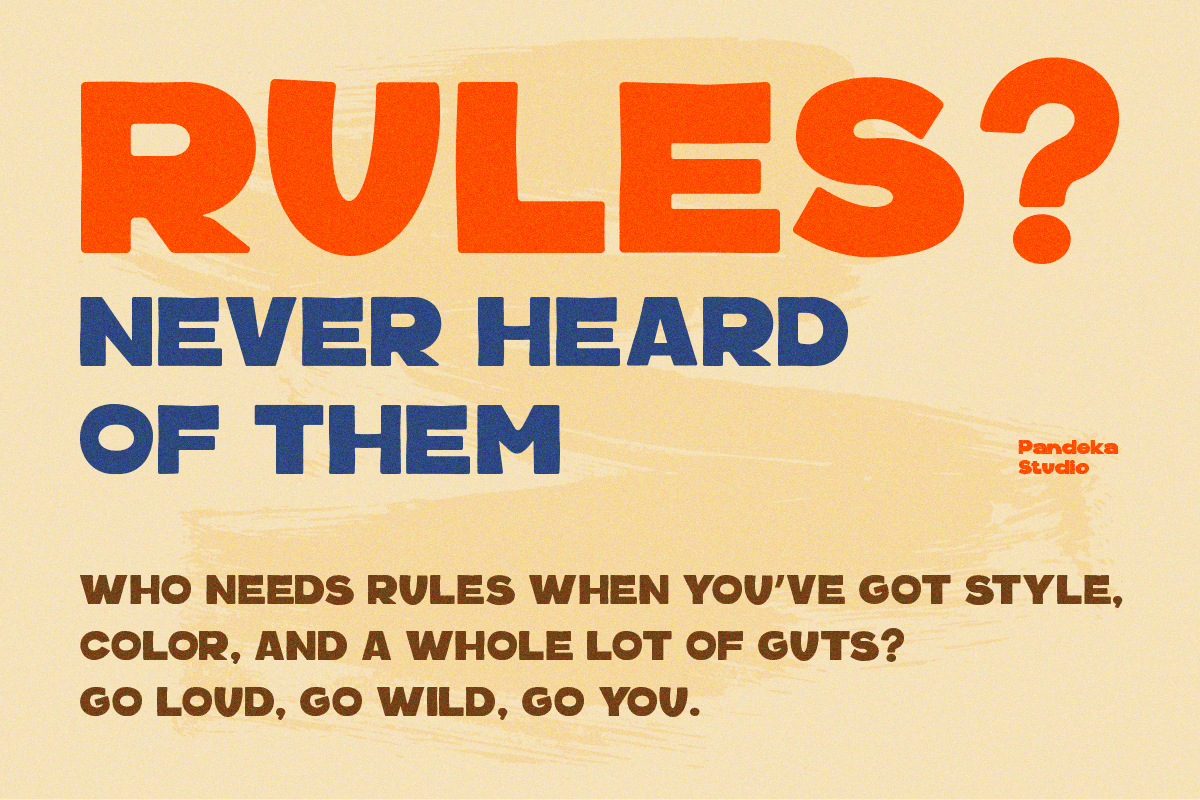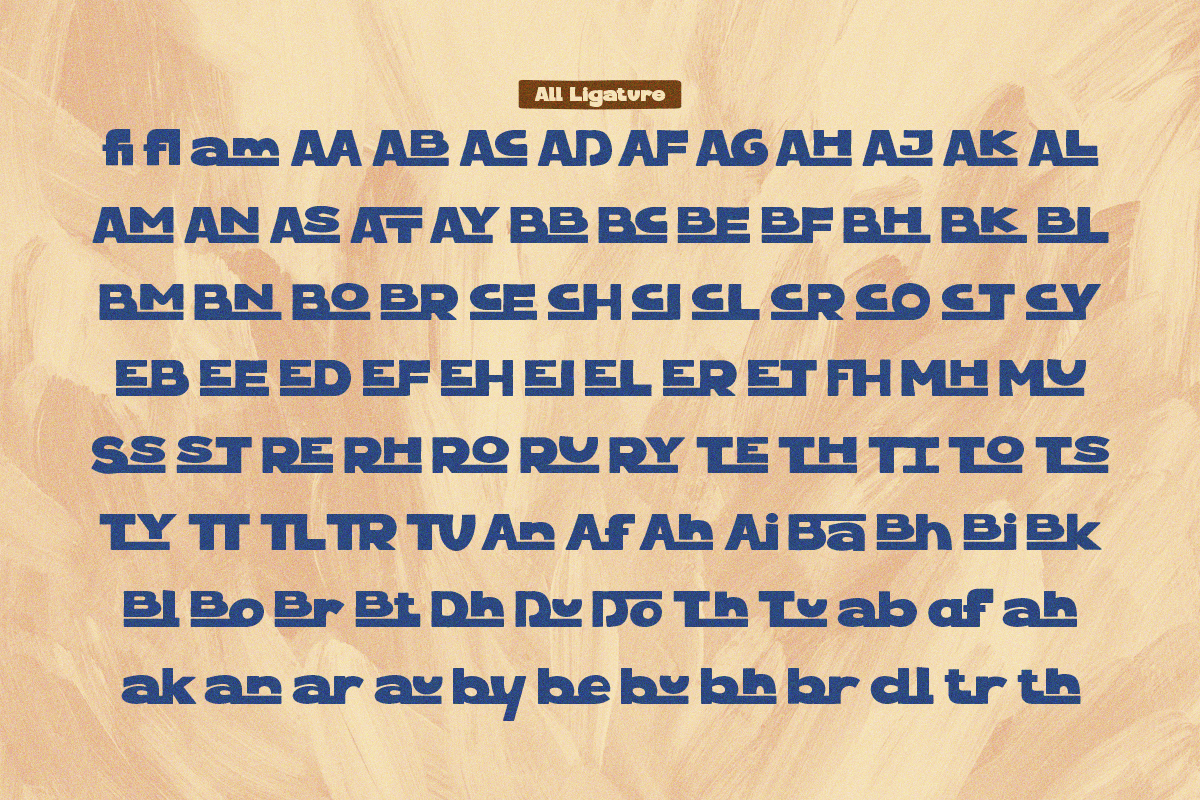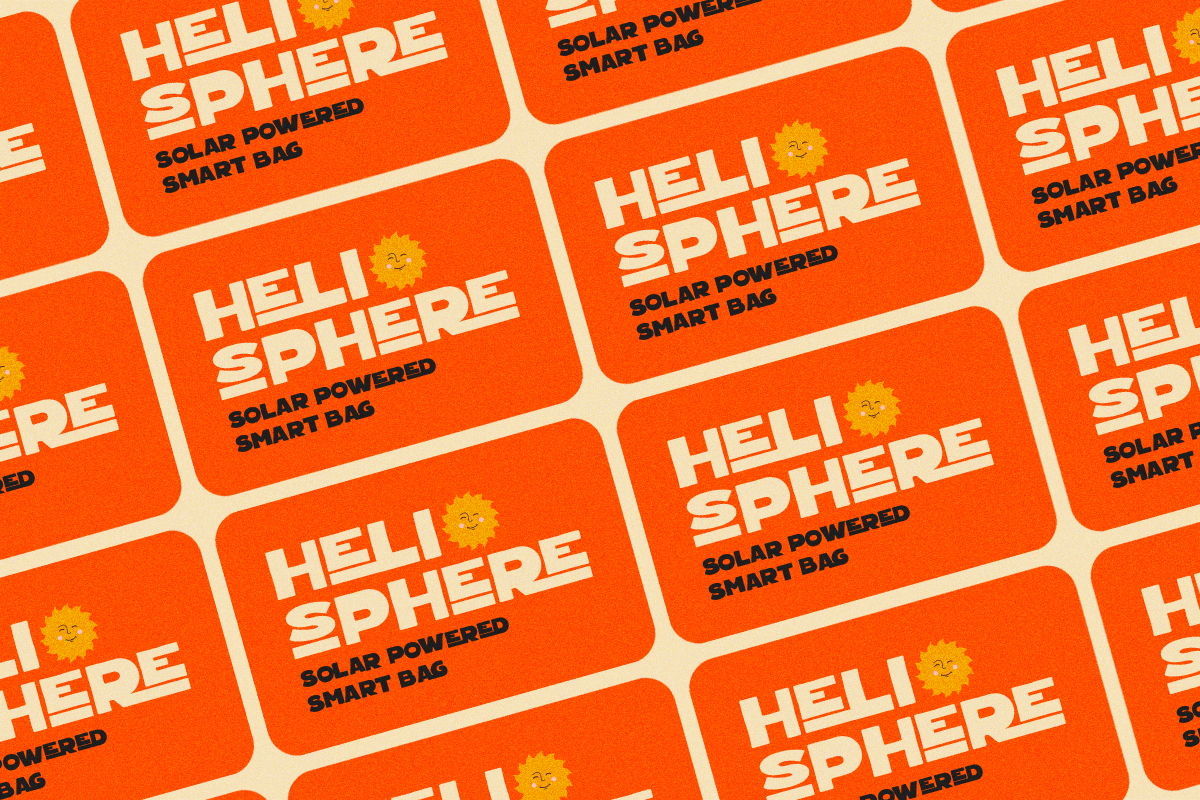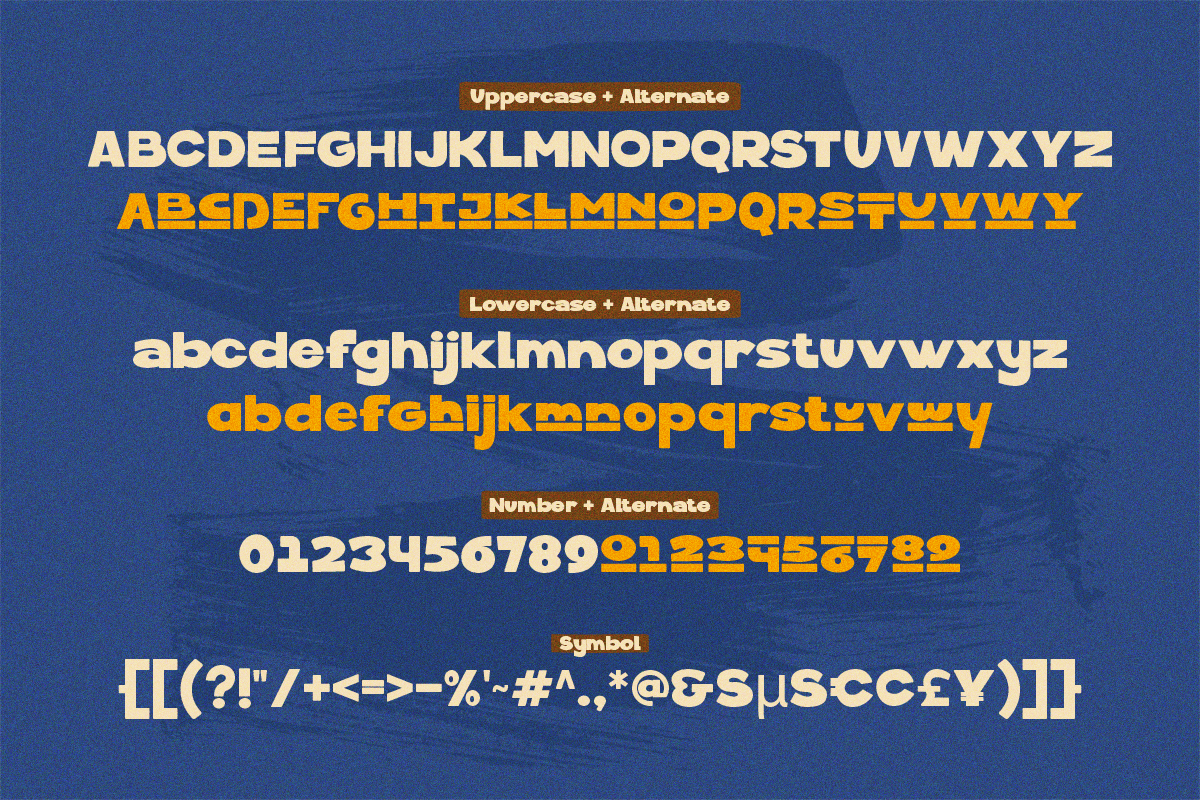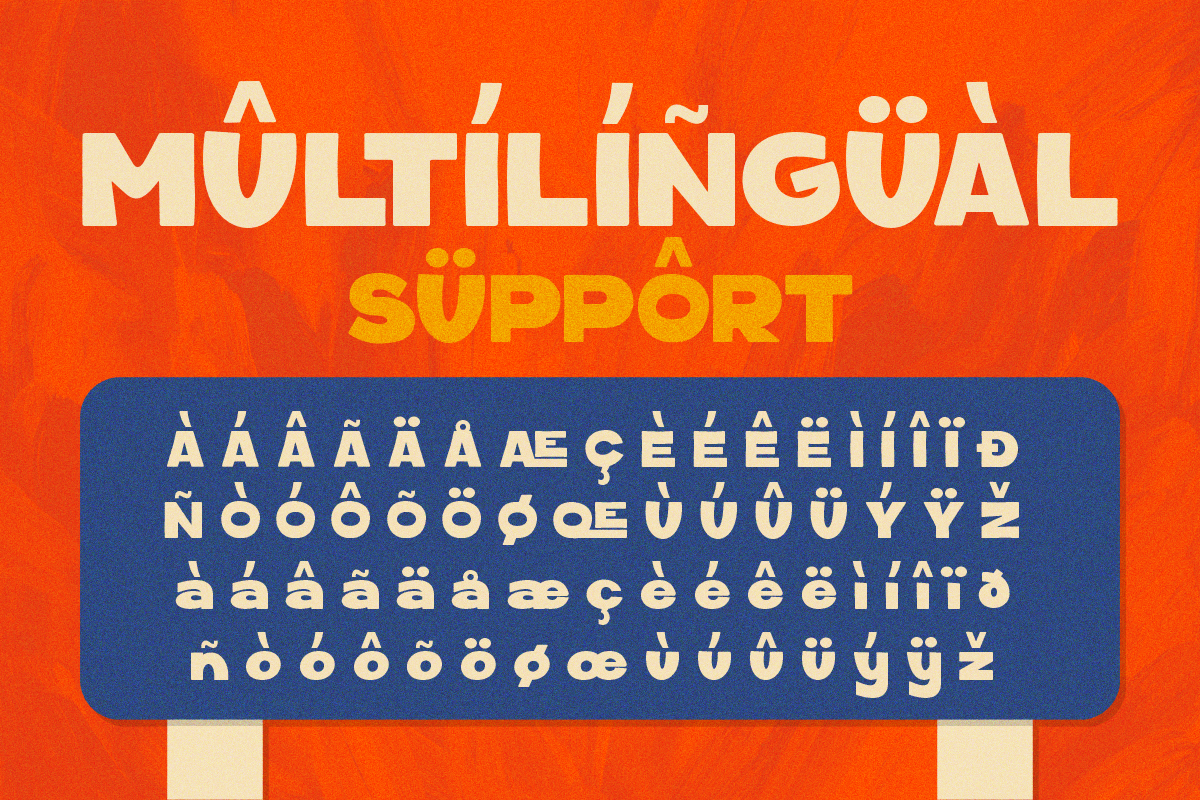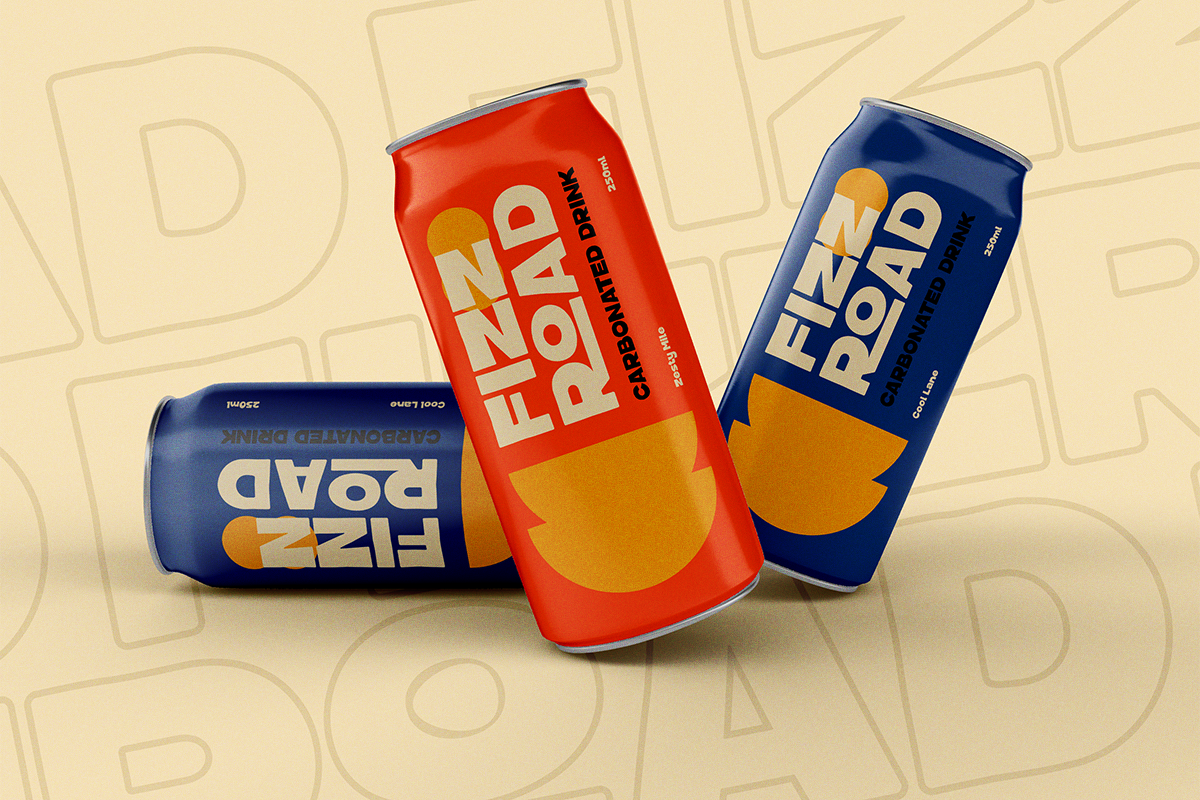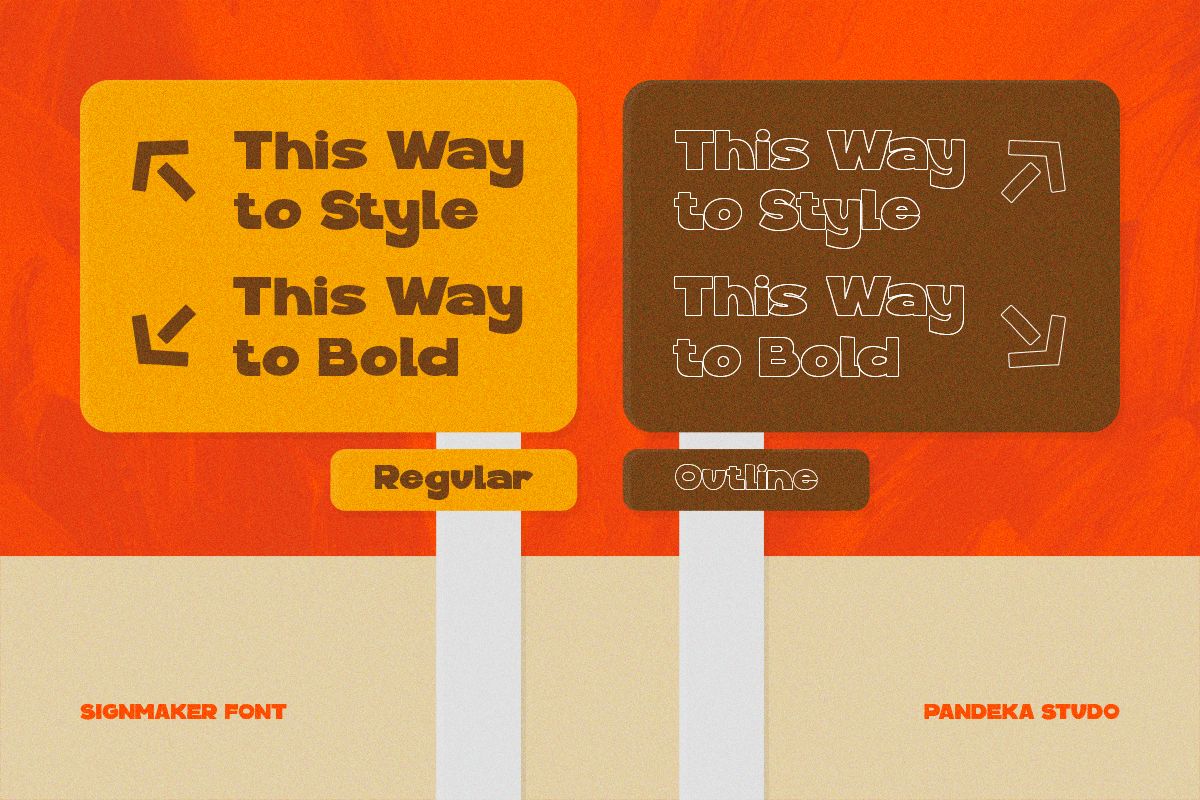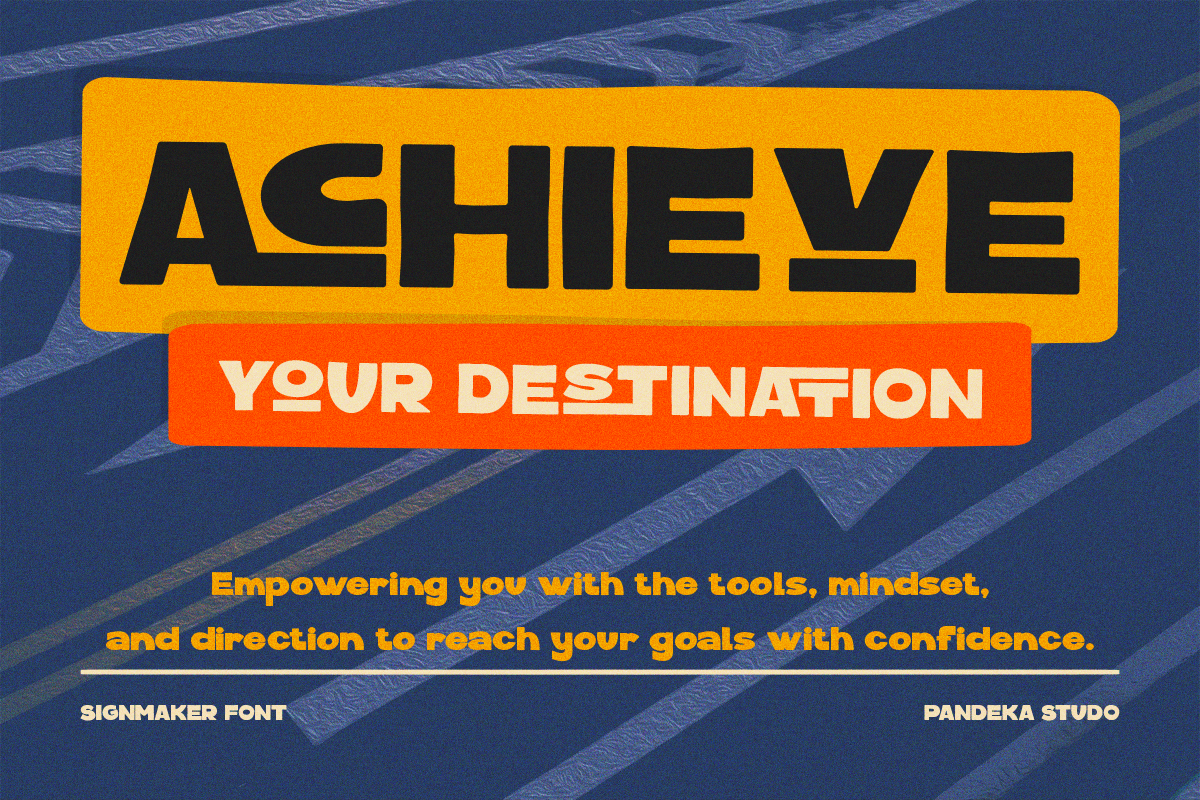
Signmaker - Bold Handwritten Display
Signmaker – Bold Handwritten Display Font
Signmaker is a bold handwritten display font with a retro flair and casual charm. Perfect for strong typography needs like posters, fashion branding, product packaging, magazine covers, or standout quotes. Its playful lettering and eye-catching design bring a modern aesthetic to any project, making it a unique and memorable typeface.
- 2 Style: Regular and Outline
- Full Character Set: Uppercase, lowercase, numbers, symbols, and punctuation
- 150+ Ligatures and alternates